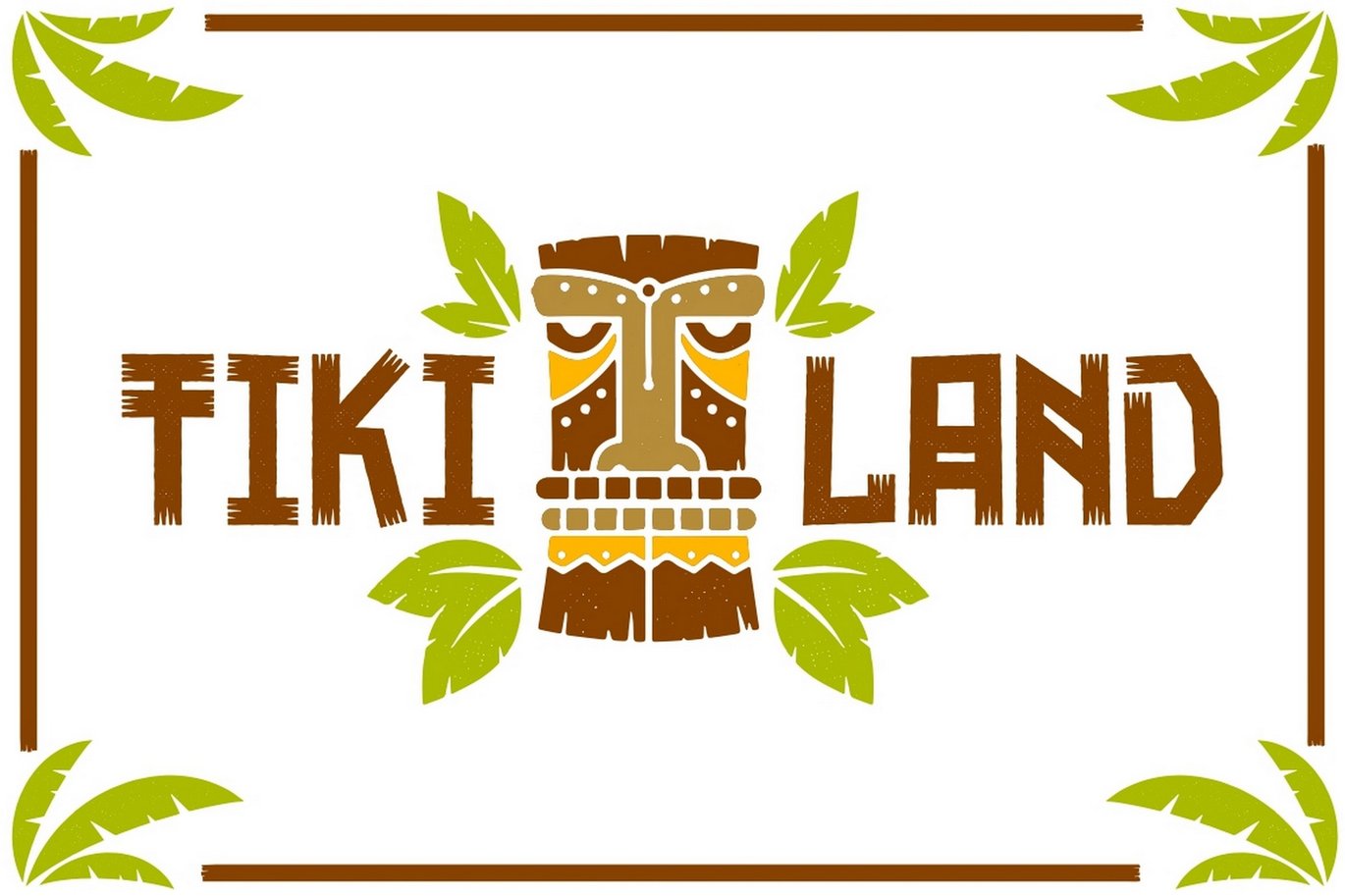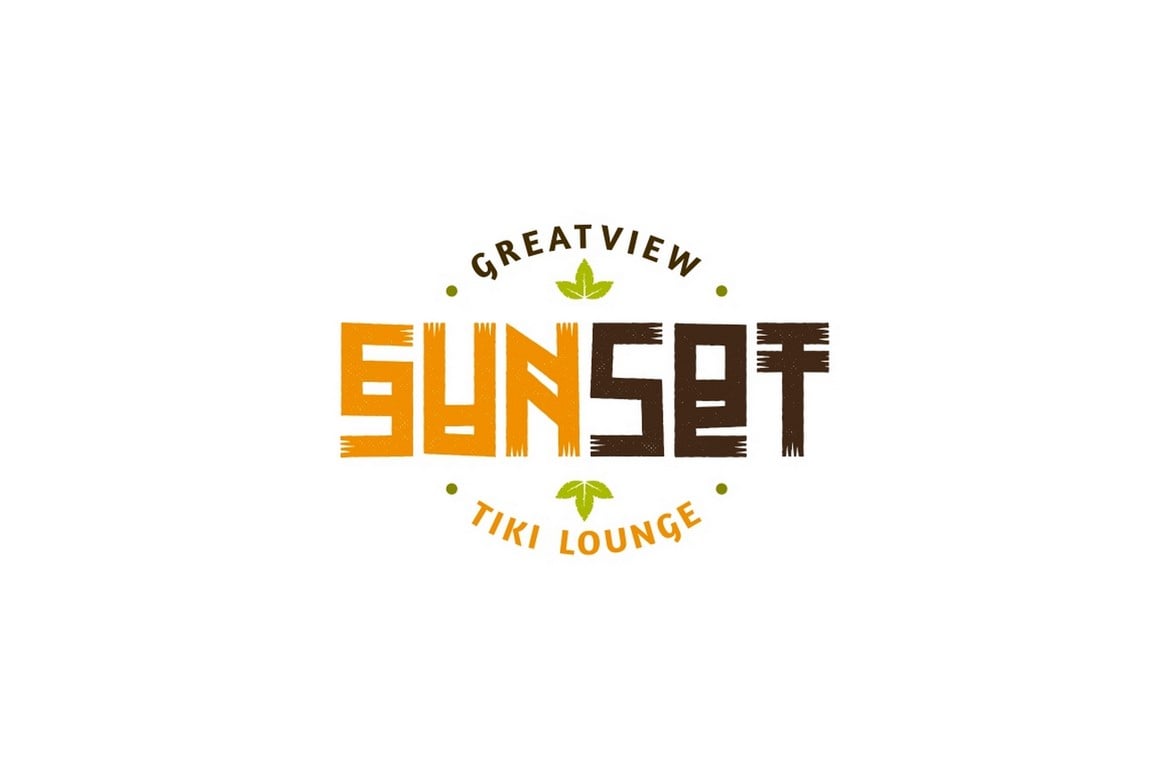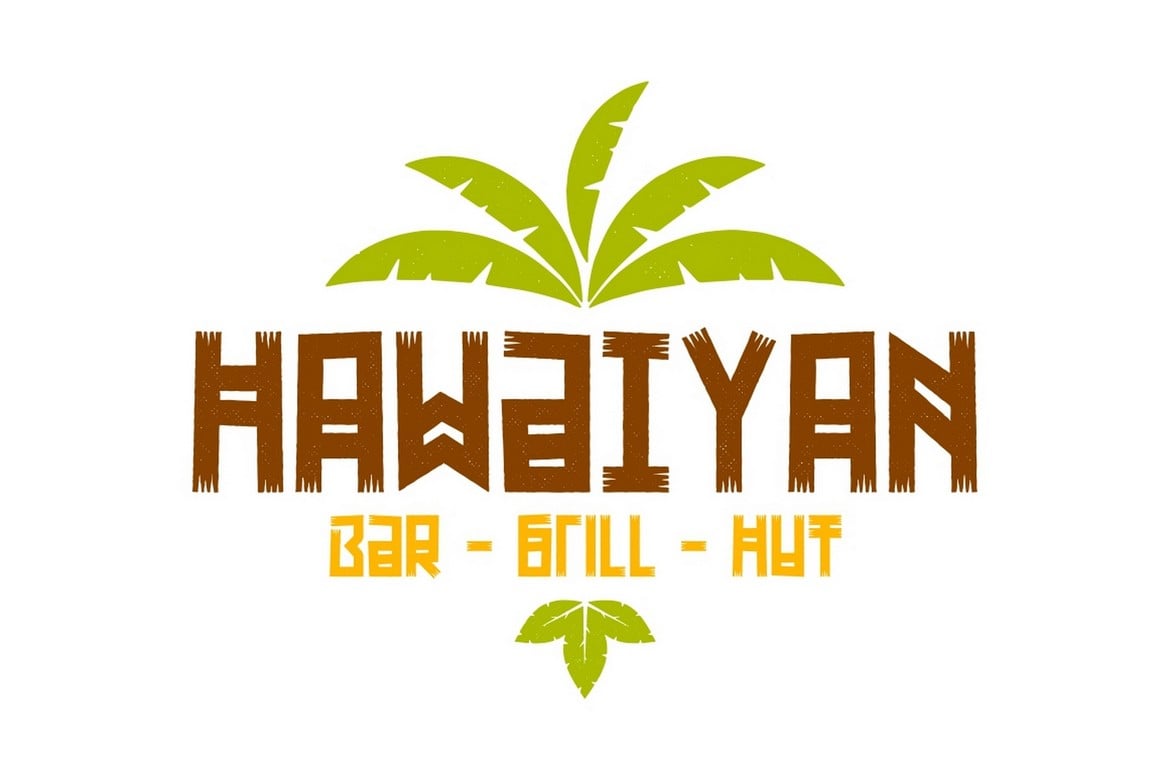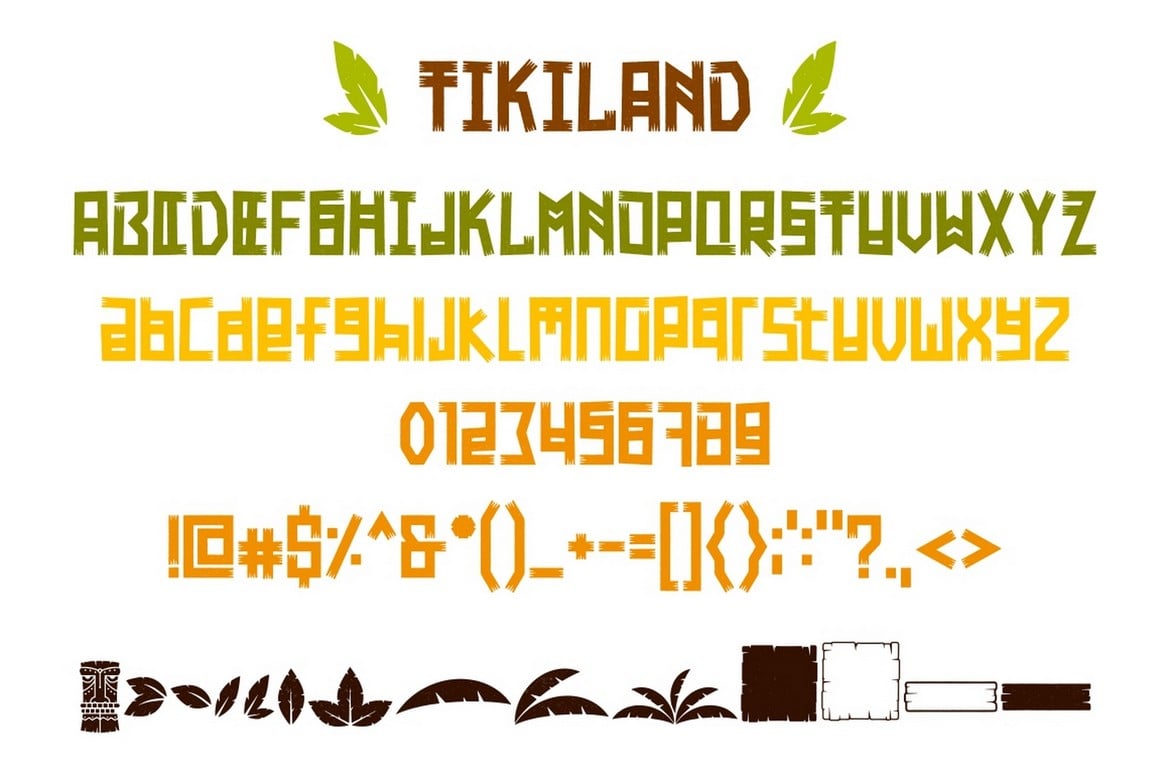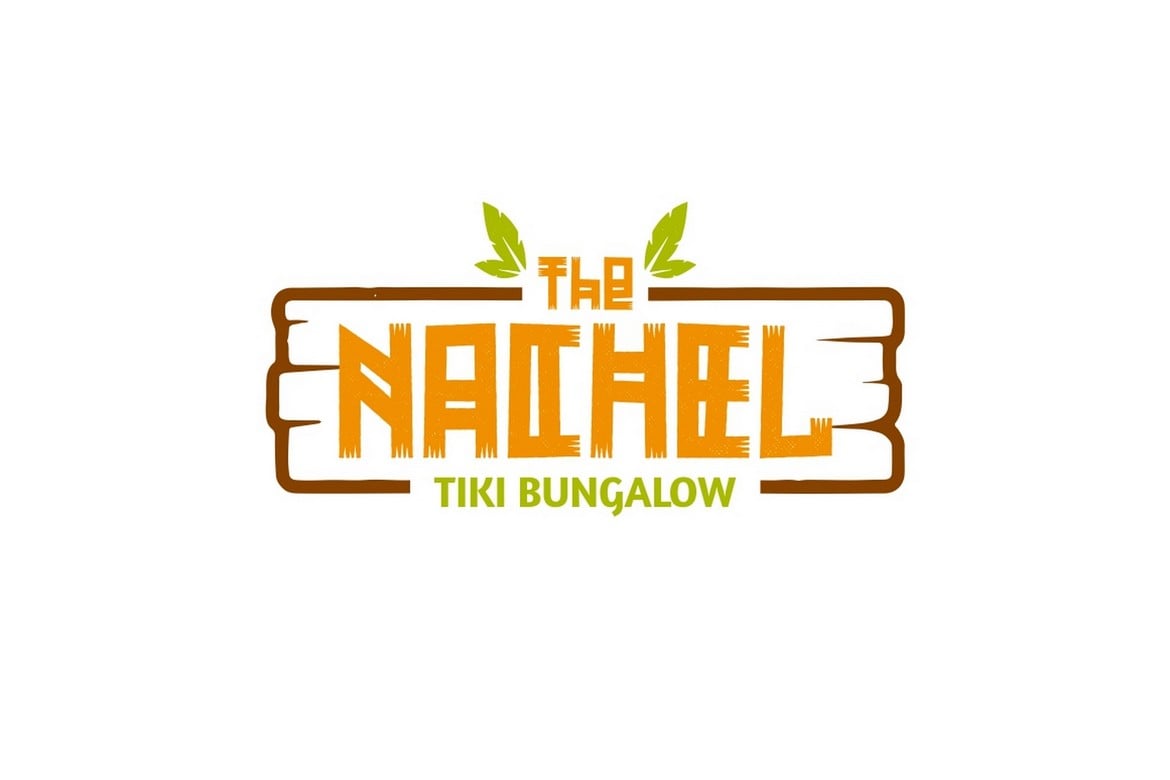
Tikiland – Fun Unique Display Font
** Tikiland **
Tikiland is a fun and unique display typeface. This typeface is great for logos, tittle, headline, tagline, tshirt, handwritten quotes, product packaging, poster, merchandise, social media, labels, branding, greeting cards, etc.